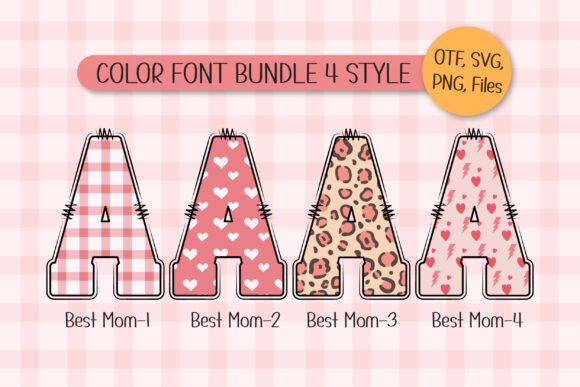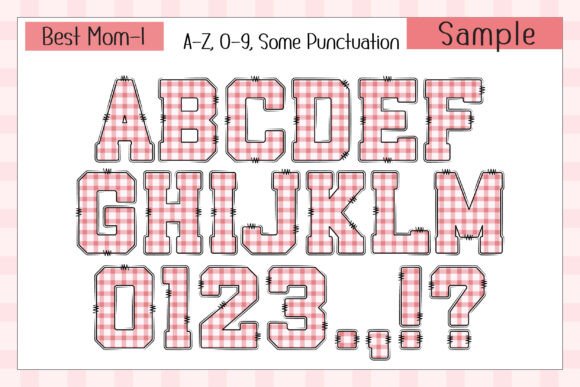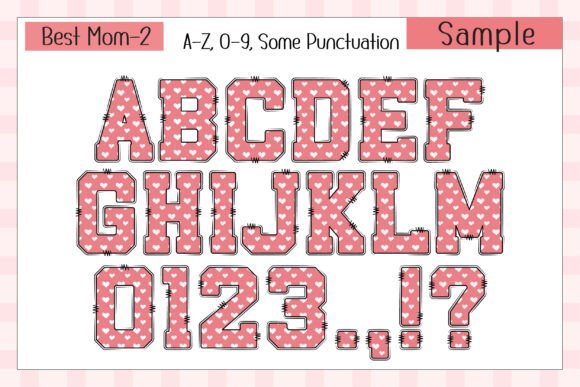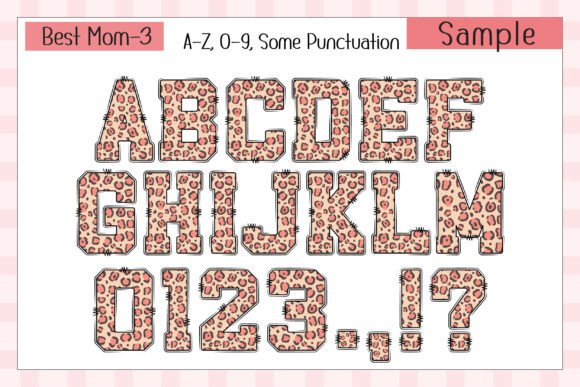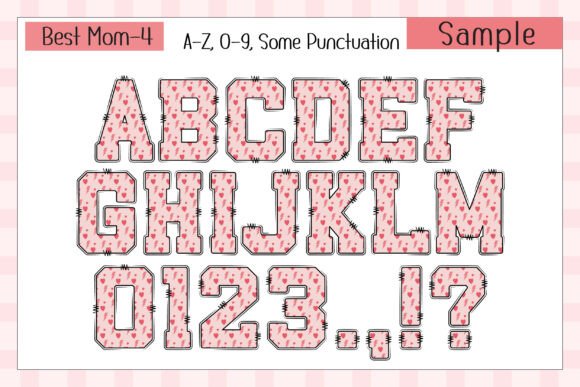
Introduction to Best Mom Font
Celebrate the love of motherhood with “Best Mom” a heartwarming Mother’s Day-themed color font in a beautiful serif style.
Designed with sweet love-inspired colors, this font beautifully conveys the warmth and care of a mother’s love Adding to its charm, it comes with 20 matching doodle cliparts featuring adorable heart characters and cute flowers, making it perfect for heartfelt Mother’s Day cards, posters, quotes, T-shirts, custom names, DIY craft projects, and more.
Key Features of Best Mom Font